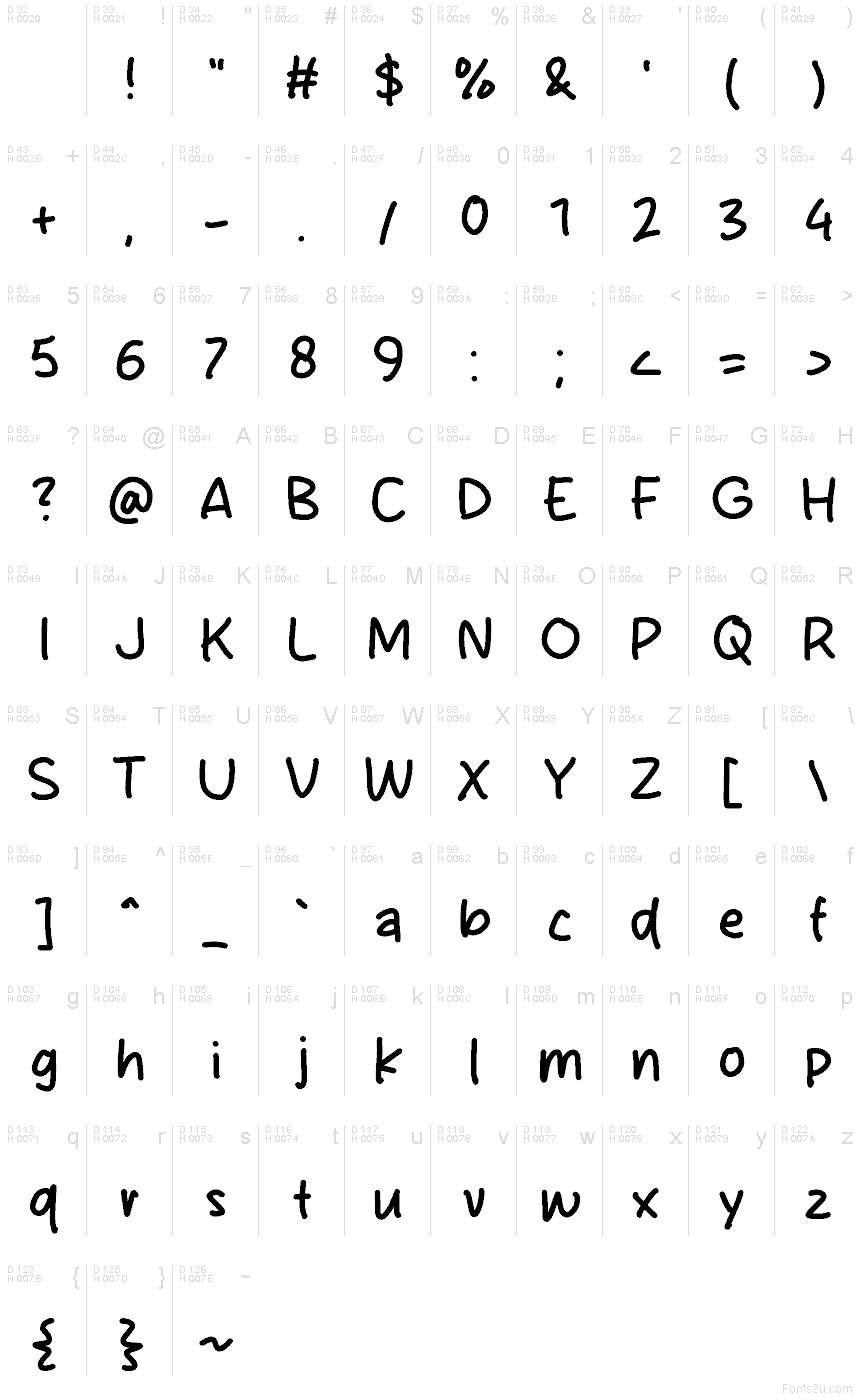
Locking Time
Locking Time font by MJType is a beautiful free handwritten font that shapes each project into a memorable experience. Its naturally written letters do not appear perfect which only adds to its authenticity and approachability. This casual style can be used for both personal and professional projects, ending up with natural designs modern viewers appreciate.
Include this new resource in greeting cards, logos and branding designs, invitations, social media posts, planners, ads, posters and flyers, blogs or e-books. Other potential uses include packaging projects from product labels to food jars or even clothing items like shoes.